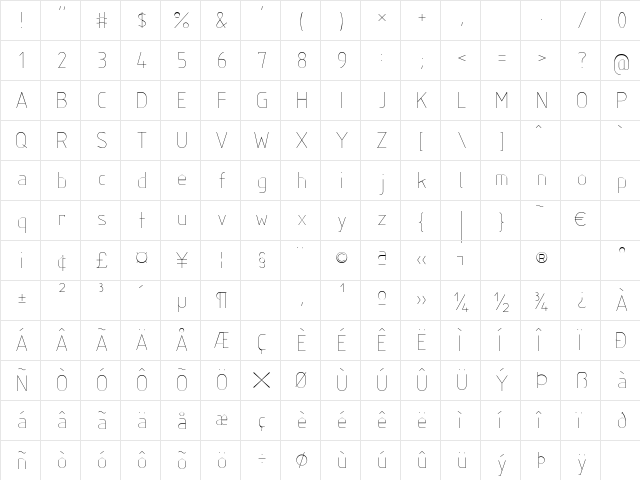
ISOCP2 Regular
Design Context for ISOCP2 Typeface
ISOCP2 is a composed and adaptable typeface that performs quietly and consistently across a wide range of design contexts.